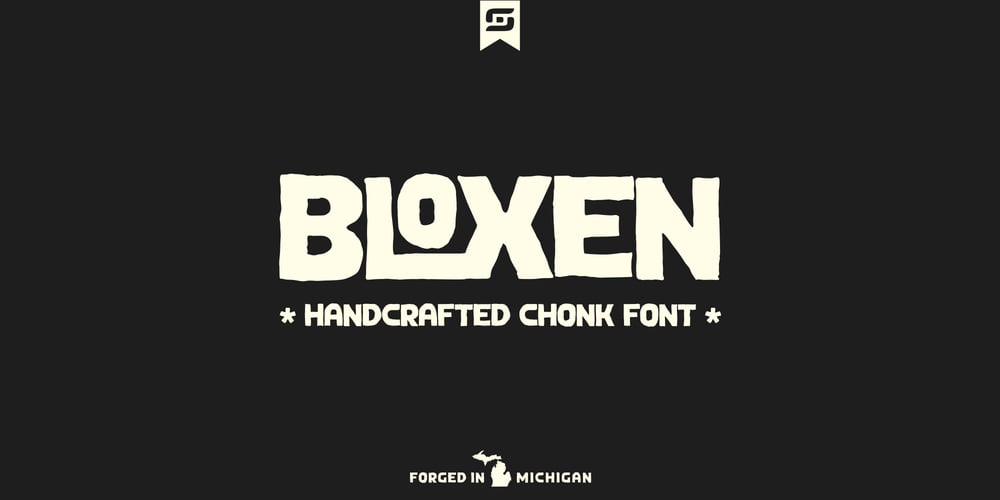
Bloxen
Bloxen font
Bloxen Font Family was designed by Dan Schaub and published by Schaub Design. Bloxen contains 1 styles and family package options. Hand-hewn along the banks of the mighty River Raisin in Southeast Michigan, this heavy block typeface is the perfect addition to any design project in need of a stout, yet fun typographical treatment. Before this font made its journey into the outside world, it began its life as a 4B pencil sketch on cheap inkjet printer paper, as many of my projects do. This typeface, not unlike me, doesn’t waste its time with finesse, or convention, and truly doesn’t mind being a little bit on the thick side. There is a time for refinement and propriety, but this ain’t it.